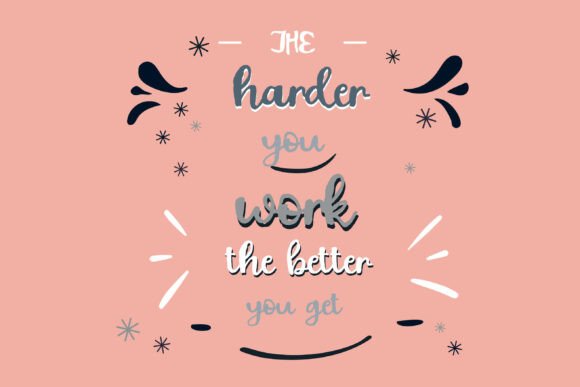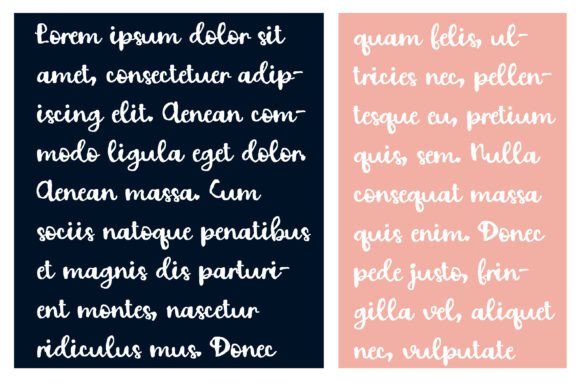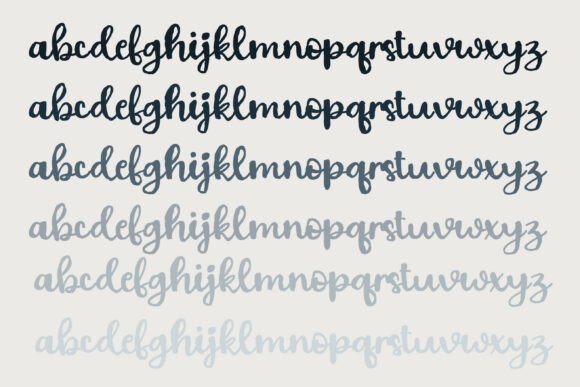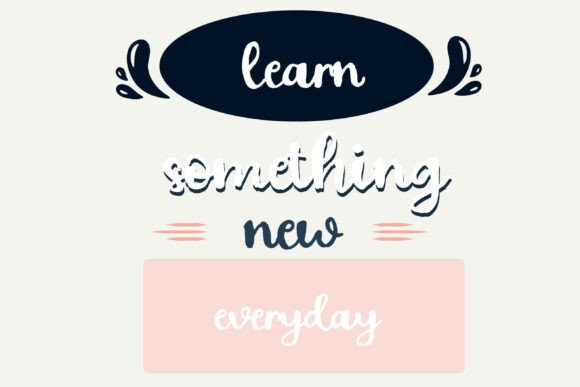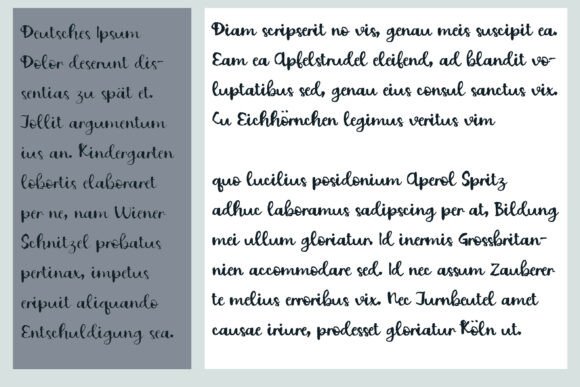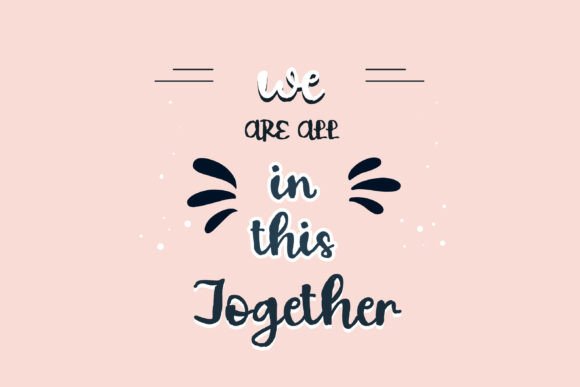
Introducing Fastidious Font: A Hand-Crafted Casual Script with a Crafty Feel
Are you tired of using generic, cookie-cutter fonts for your design projects? Look no further than Fastidious Font, a unique and charming hand-crafted font that’s perfect for adding a personal touch to your creations. This casual script font features textures throughout and a crafty feel that’s sure to make your designs stand out.
A hand-crafted font is a typeface that is designed to look like it was written by hand. It’s often used for special occasions, such as invitations, greeting cards, and other items where a personal touch is desired. Handwritten fonts can be either formal or informal, and they can be used for a variety of purposes, from digital designs to print materials.
The Characteristics of Fastidious Font
Fastidious Font is a one-of-a-kind, hand-crafted font that boasts a range of characteristics that make it perfect for designers and crafters. Some of its key features include:
- Textures throughout: Fastidious Font features textures throughout, giving it a unique and organic feel that’s perfect for adding a personal touch to your designs.
- Crafty feel: This font has a distinctly crafty feel that’s perfect for designers and crafters who want to add a touch of whimsy to their creations.
- Stencil version included: Fastidious Font comes with a stencil version, making it easy to use for a variety of projects, from scrapbooking to signage.
- Casual script style: This font features a casual script style that’s perfect for creating invitations, greeting cards, and other items where a personal touch is desired.
Uses for Fastidious Font
Fastidious Font is a versatile typeface that can be used for a wide range of projects, including:
- Invitations: Whether you’re planning a wedding, birthday party, or other special occasion, Fastidious Font is perfect for creating unique and personalized invitations.
- Greeting cards: This font is ideal for creating handmade greeting cards for special occasions, such as holidays, birthdays, and anniversaries.
- Scrapbooking: Fastidious Font is a great addition to any scrapbooking project, adding a personal touch to your pages and layouts.
- Signage: The stencil version of Fastidious Font makes it easy to use for signage projects, from directional signs to event banners.
Tips for Using Fastidious Font
Here are a few tips for getting the most out of Fastidious Font:
- Experiment with colors: Fastidious Font looks great in a range of colors, so don’t be afraid to experiment and find the perfect hue for your project.
- Mix and match: Try pairing Fastidious Font with other fonts and textures to create a unique and eye-catching design.
- Pay attention to spacing: Make sure to adjust the spacing between letters and words to create a natural, handwritten feel.
Fastidious Font is a unique and charming hand-crafted font that’s perfect for designers and crafters who want to add a personal touch to their creations. With its textures, crafty feel, and stencil version, this font is sure to become a favorite in your design arsenal. So why settle for generic, cookie-cutter fonts when you can use Fastidious Font to create something truly special?